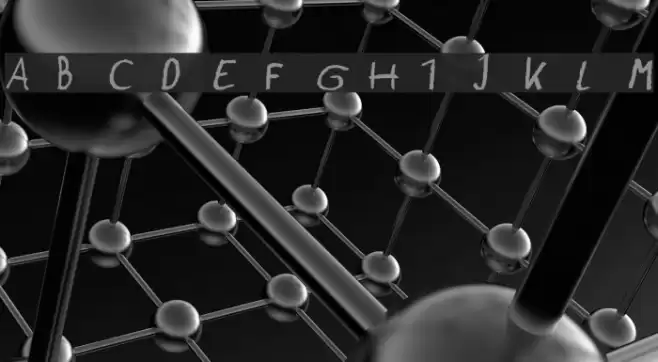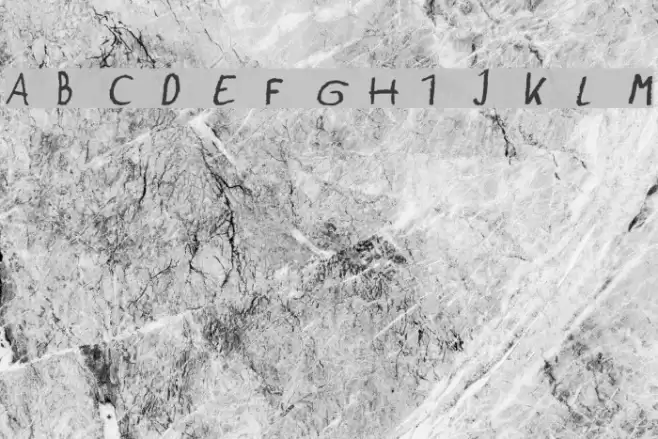
WazzDaka Font
WazzDaka Description
This font features a playful and casual handwritten style, characterized by its irregular strokes and slightly uneven baseline. The letters have a spontaneous feel, with varying thickness that adds a dynamic and lively touch. The uppercase and lowercase letters maintain a consistent style, while the numbers and special characters complement the overall aesthetic. The font's informal nature makes it suitable for creative and artistic projects, where a personal and approachable tone is desired.
A playful, casual handwritten font with irregular strokes and a dynamic feel from Distorted Eroded fonts.
- Proposed Projects: Ideal for greeting cards, invitations, personal blogs, and artistic branding projects.
- Overall Style: Casual, Artistic
- Use Case: Headlines, Artistic projects, Informal communications